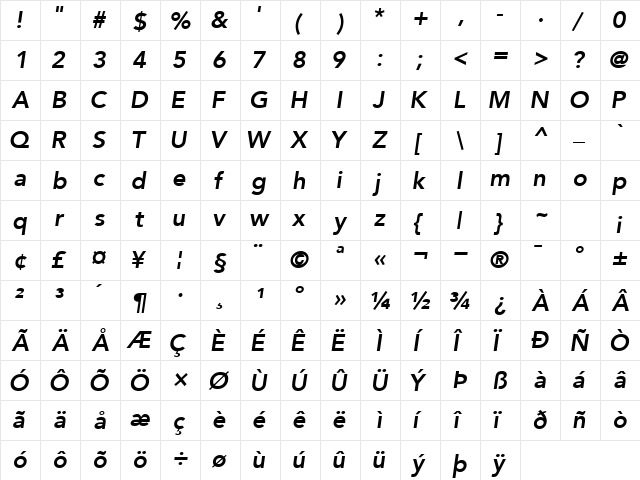
ExpoSSK BoldItalic
Design Context for ExpoSSK Typeface
ExpoSSK is a composed and adaptable typeface that performs quietly and consistently across a wide range of design contexts. The dynamic lean of this cut emphasises speed and emphasis in any layout. Its bold stroke weight gives it real presence on the page.
Pro Tip: Use ExpoSSK for emphasis, pull quotes, and subheadings where its slanted energy can add rhythm to the layout.